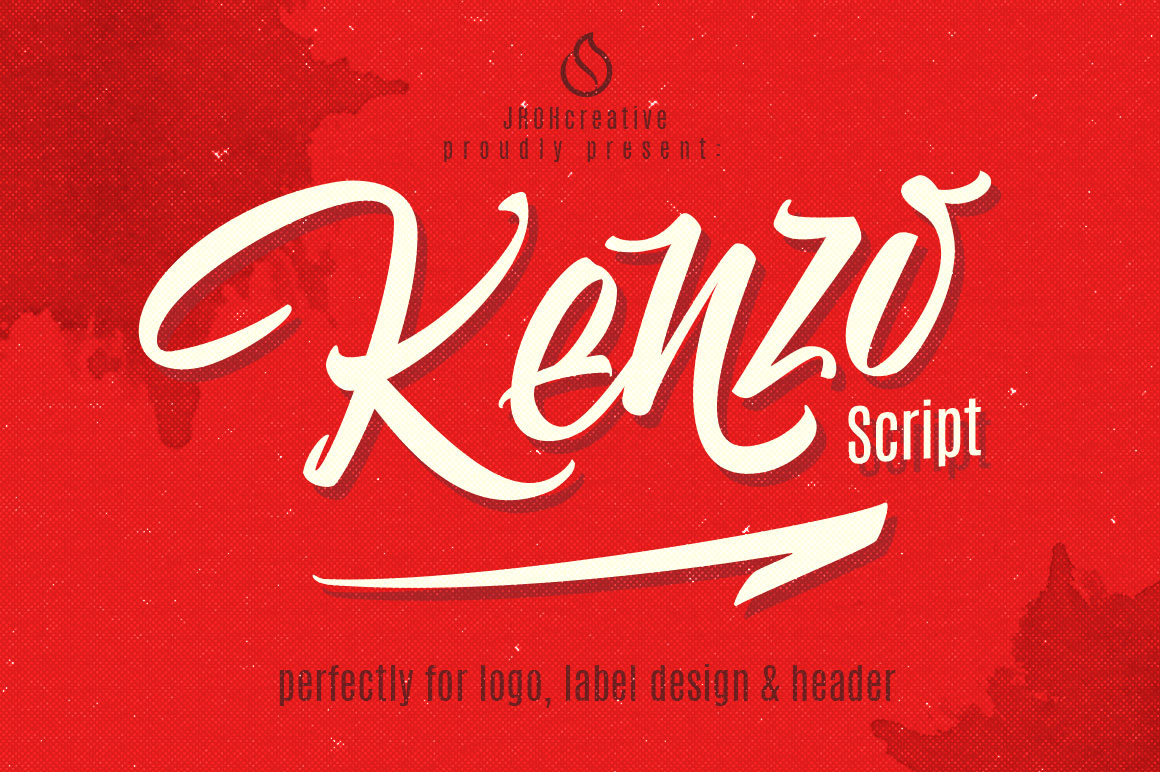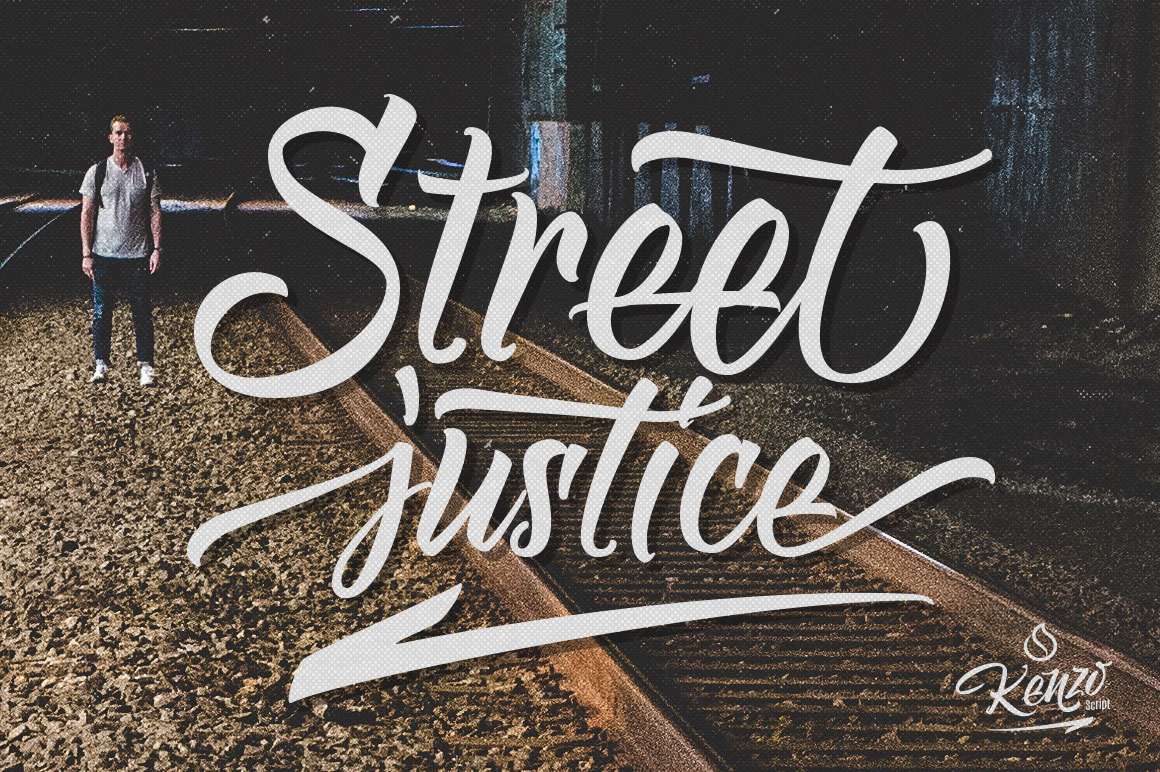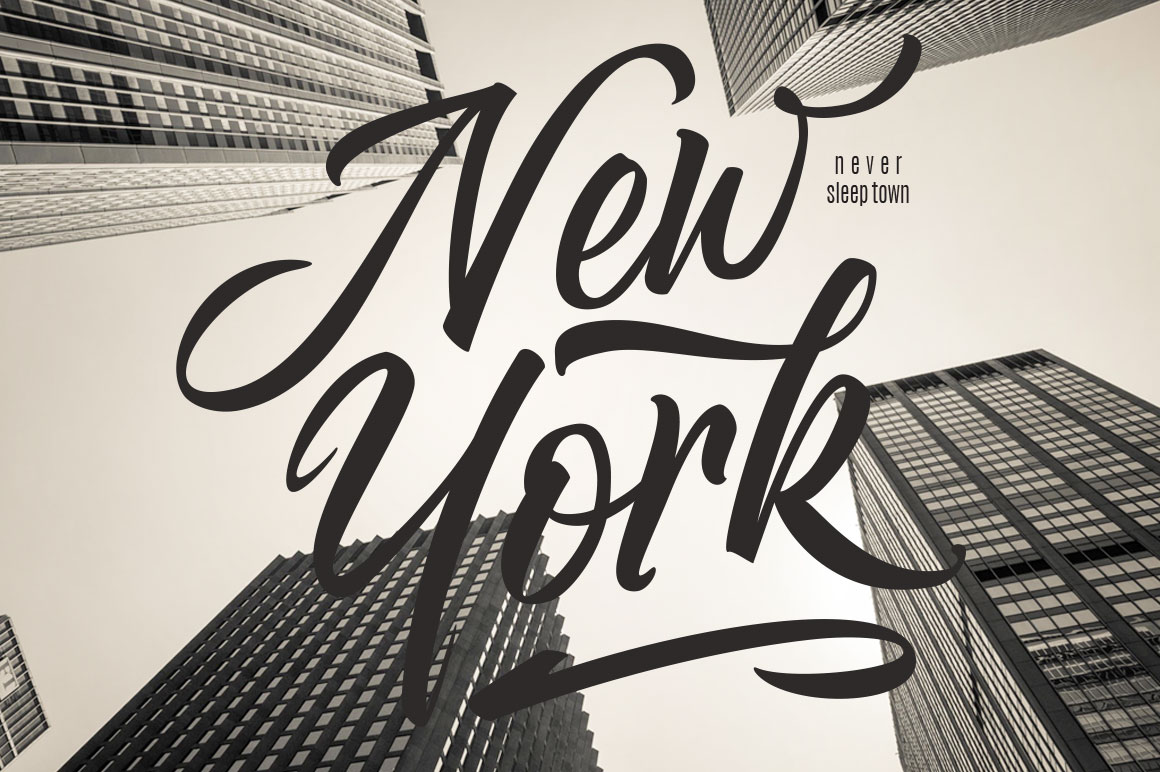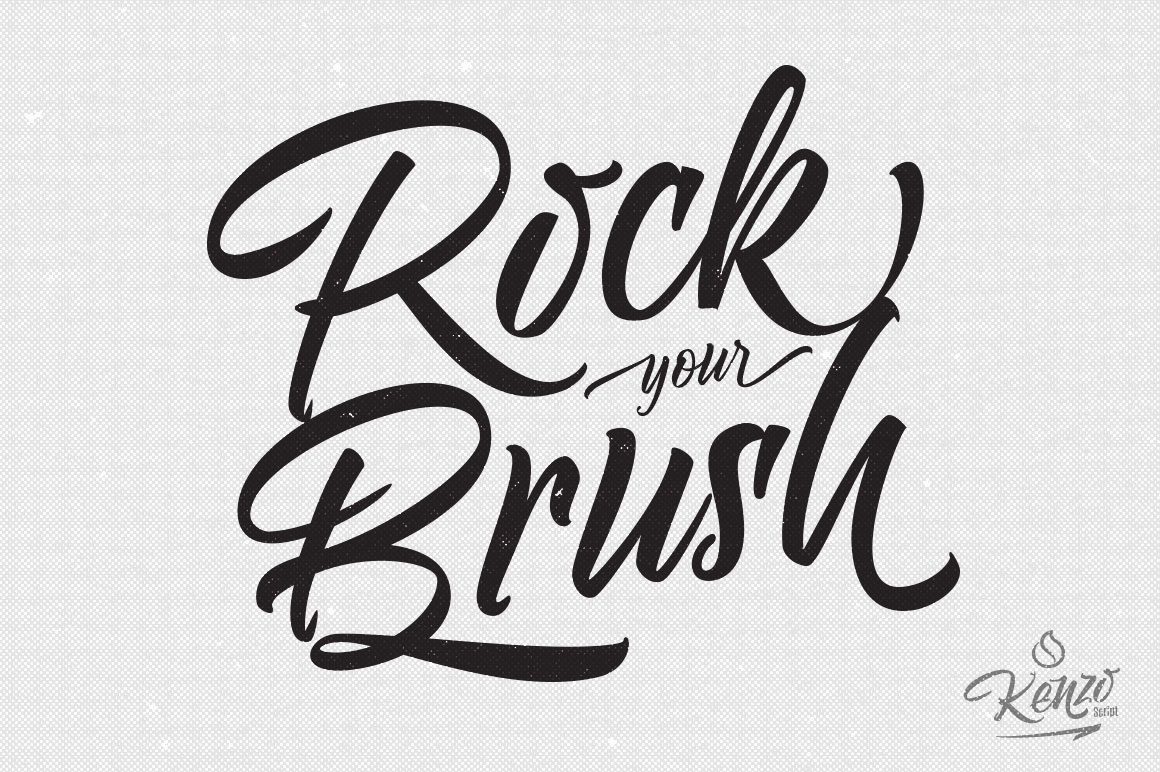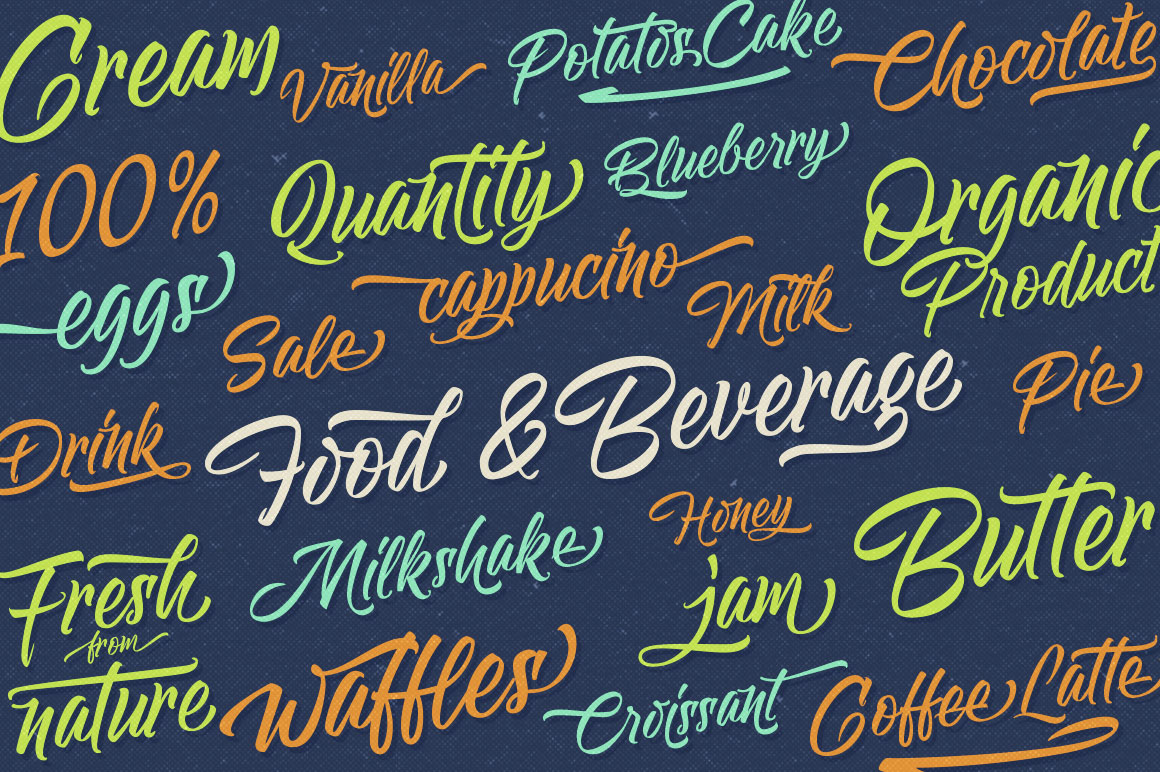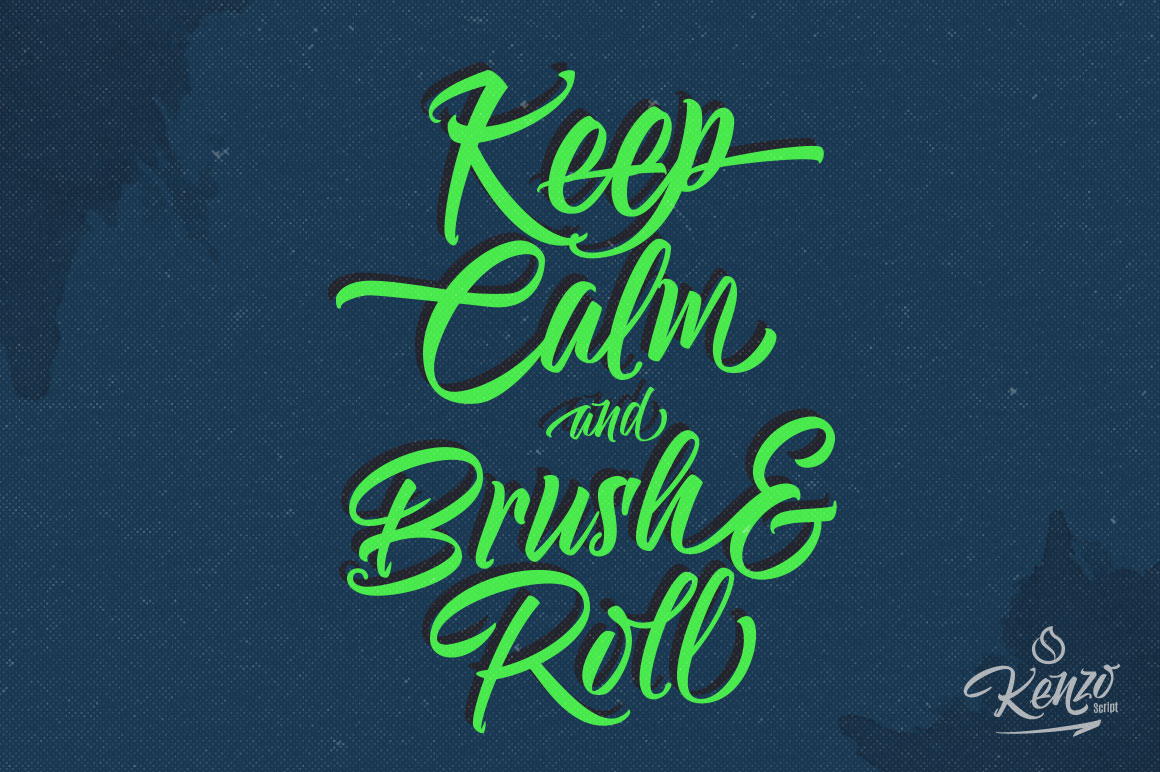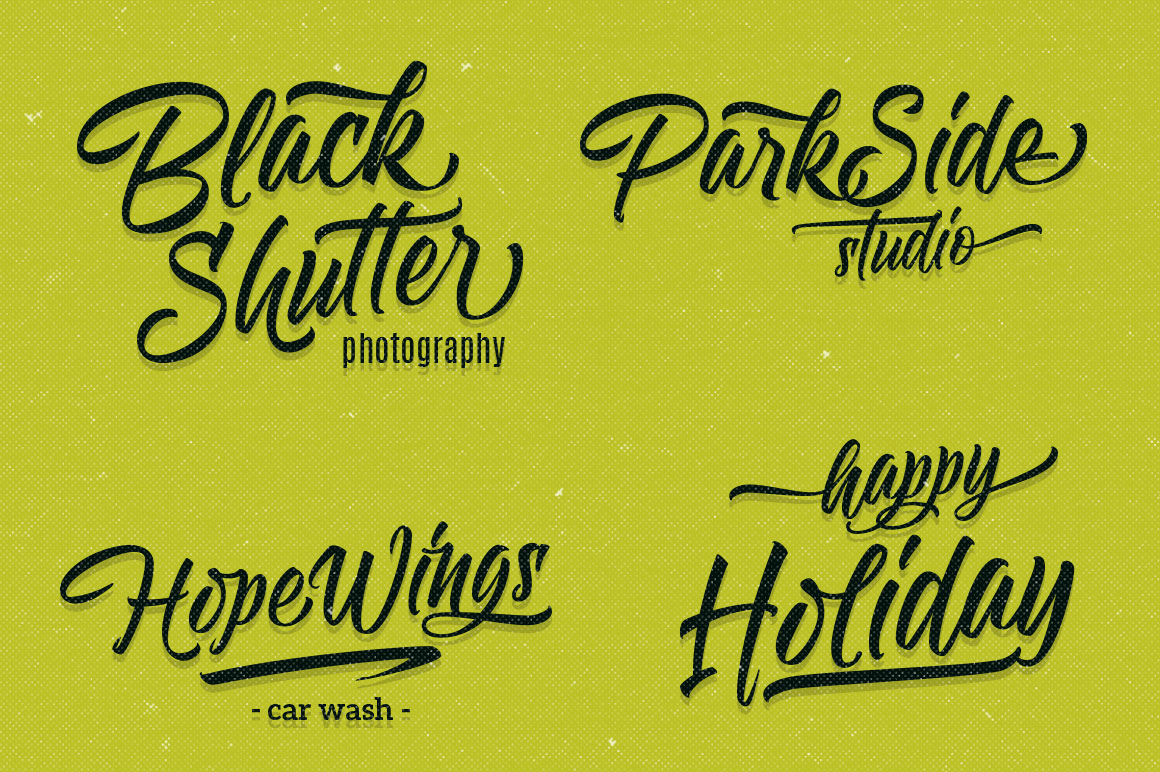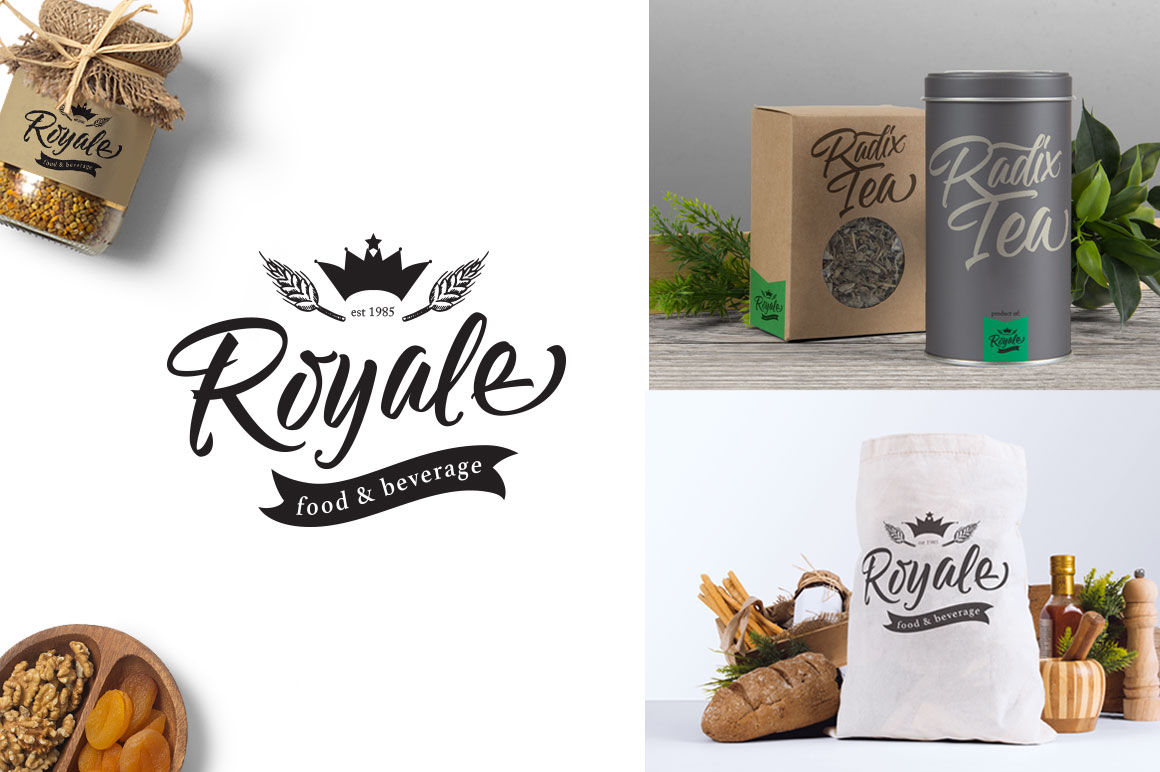
Kenzo Script Font
About Kenzo Script Font
Kenzo Script is a stunning handwritten font packed with more than 490 glyphs with 267 alternates.
The Kenzo Script font is the type of font that will work in endless projects and can be used repeatably.